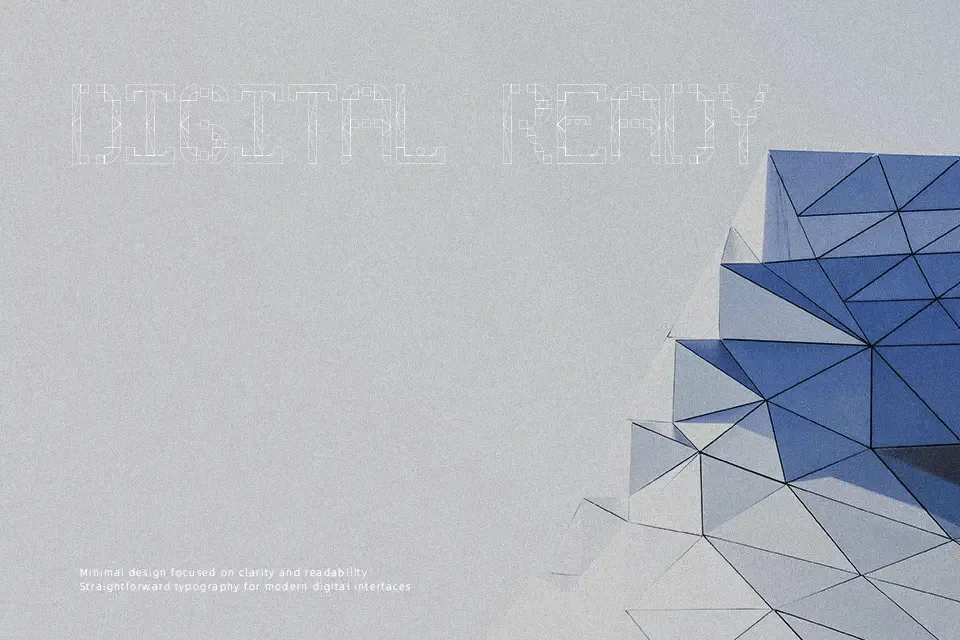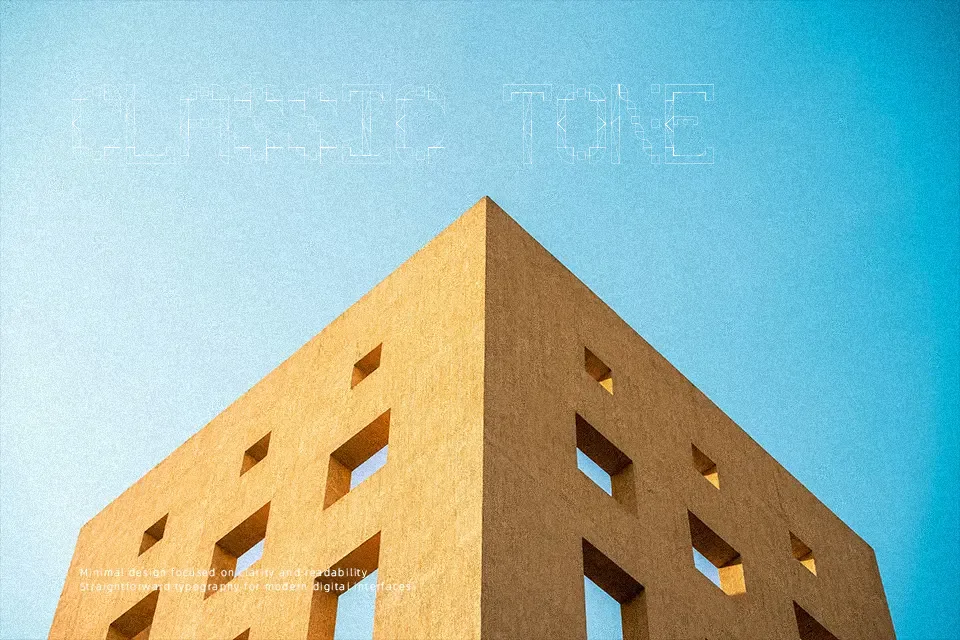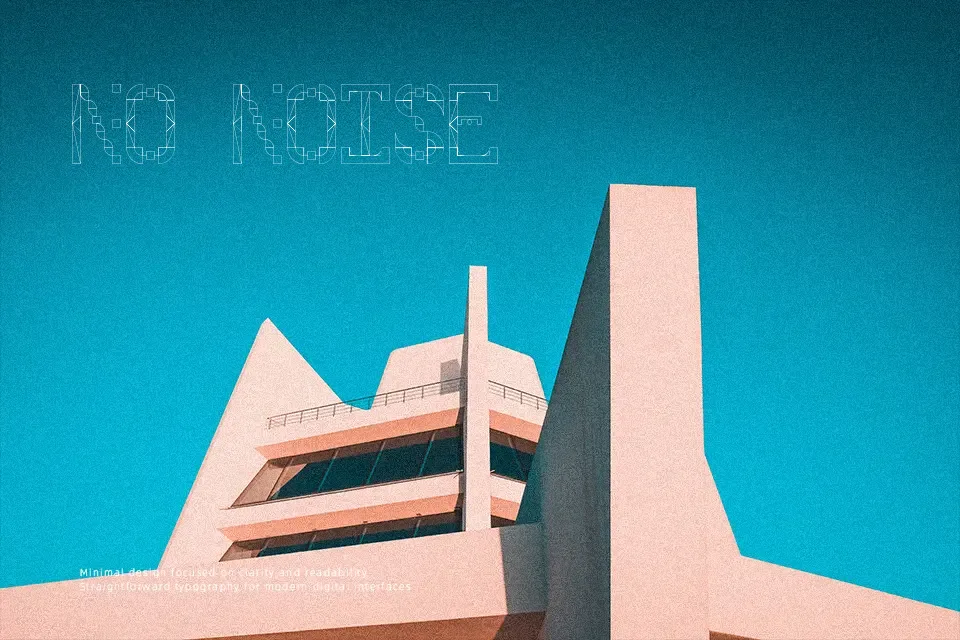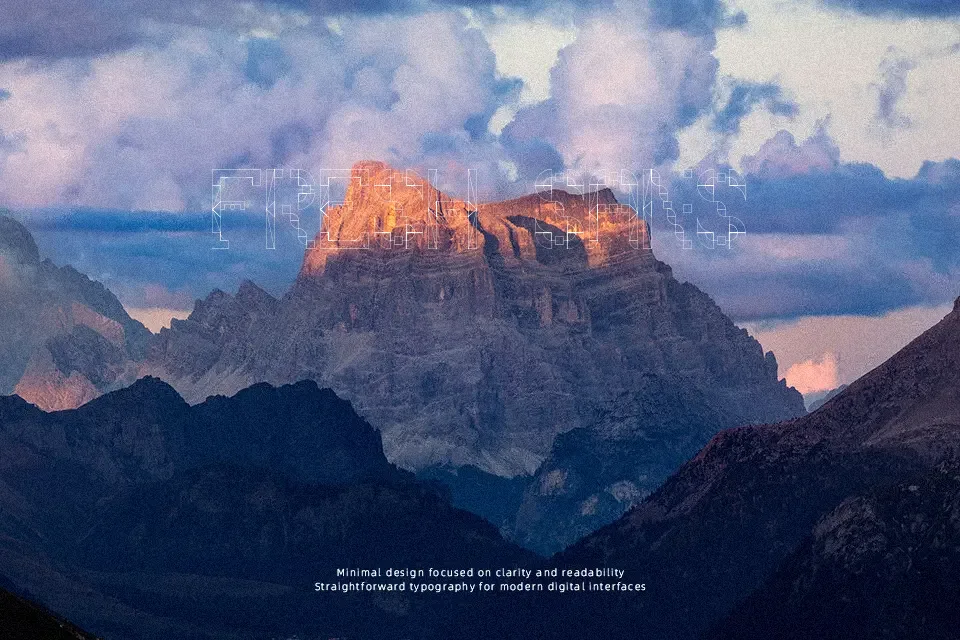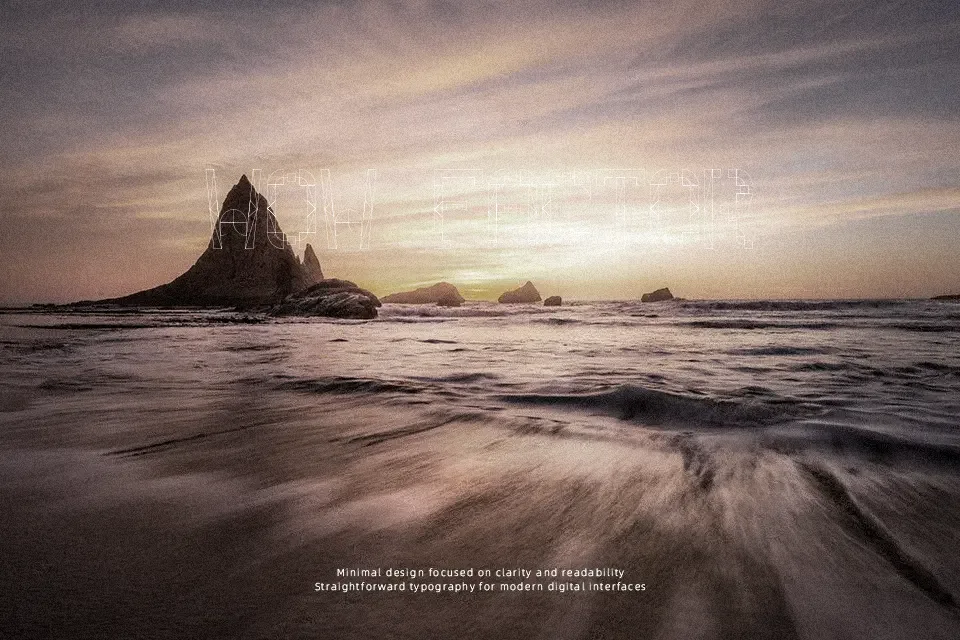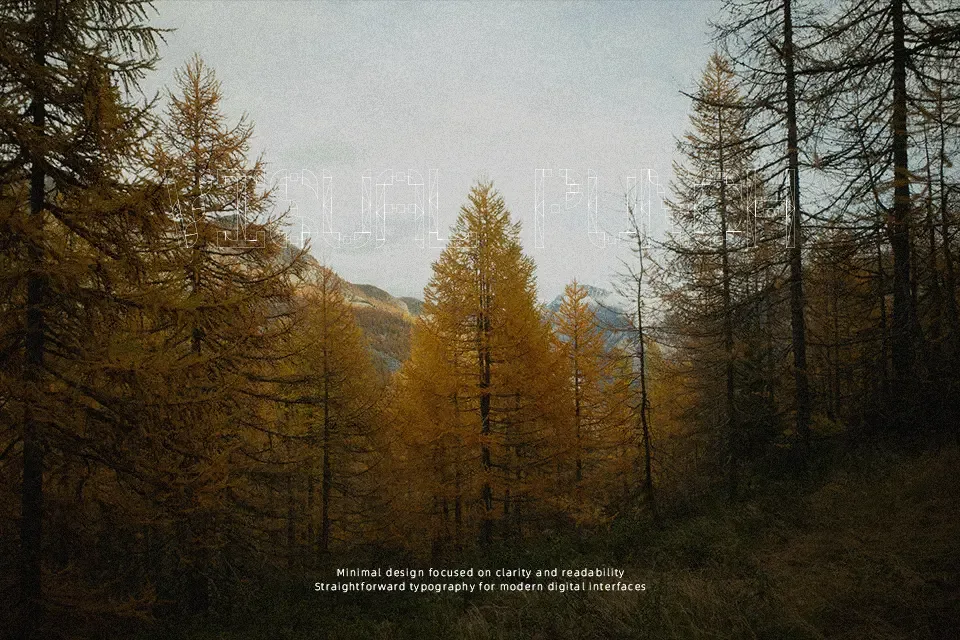
Second Wind Font
Second Wind Font features an intricate modular construction characterized by segmented strokes, geometric cutouts, and uniform monolinear weights. Each character is assembled from distinct angular pieces and curved terminals that create an airy, mechanical aesthetic across all capital letterforms. The proportional spacing is relatively wide, maintaining individual glyph recognition despite the heavy decorative breaks within each character. While the design delivers memorable visual impact on event banners, experimental branding, and digital album covers, the complex fragmentation reduces reading comfort in continuous text. Consequently, decorative details become less effective at smaller sizes, making this typeface most reliable strictly for prominent headlines and short graphic phrases.
Best For: music festival posters, streetwear apparel graphics, electronic music album covers, website hero headlines
Not Ideal For: long paragraph text, mobile app body copy, dense editorial layouts, small interface labels